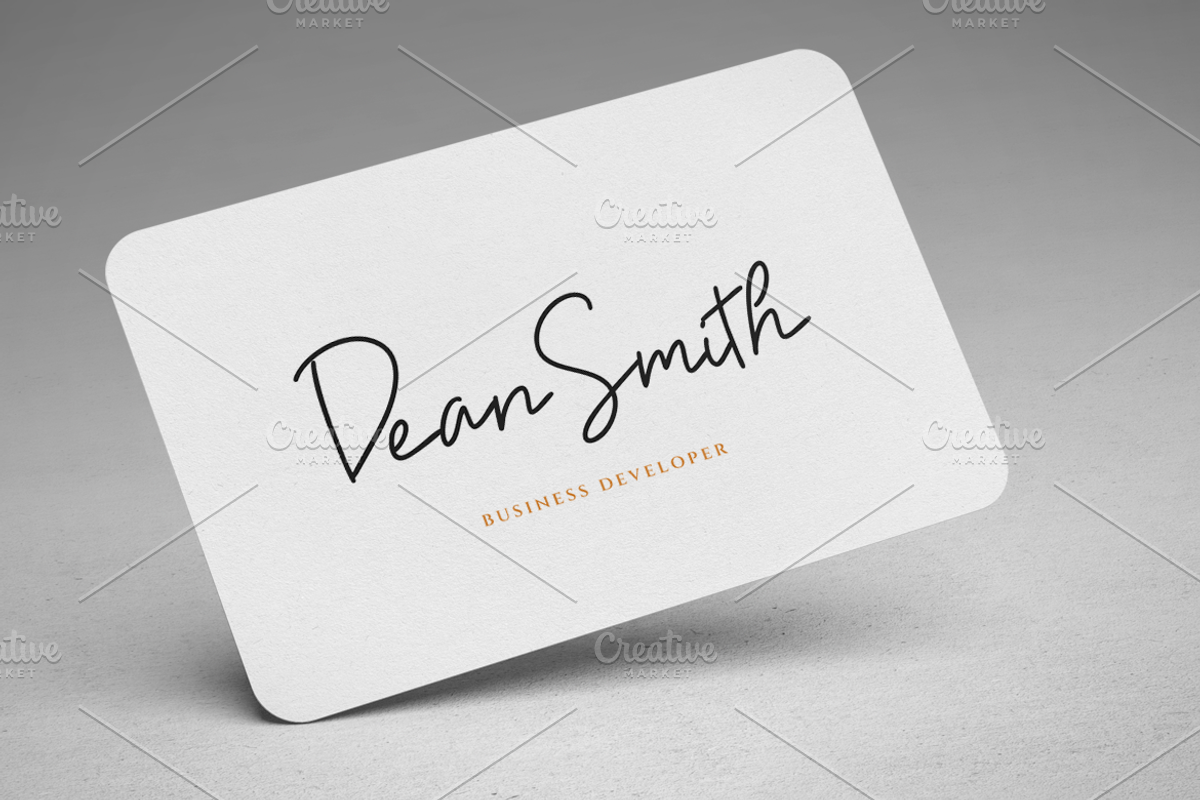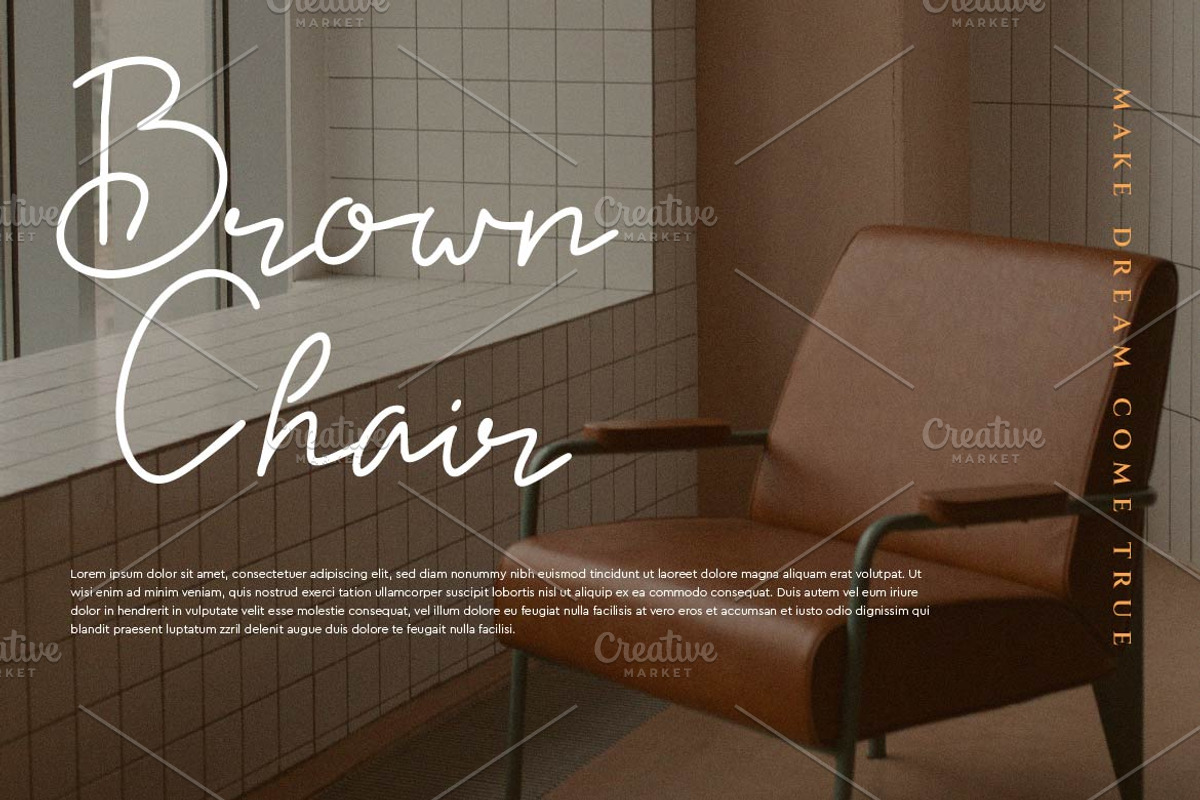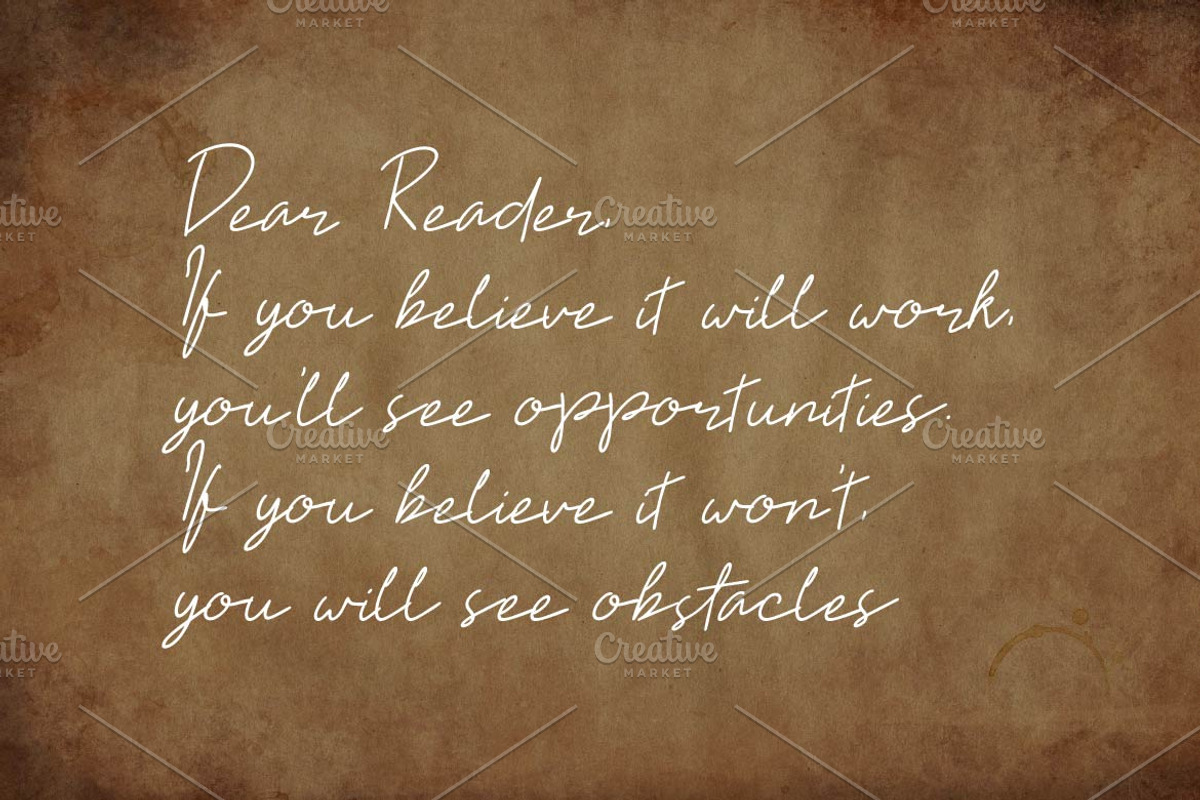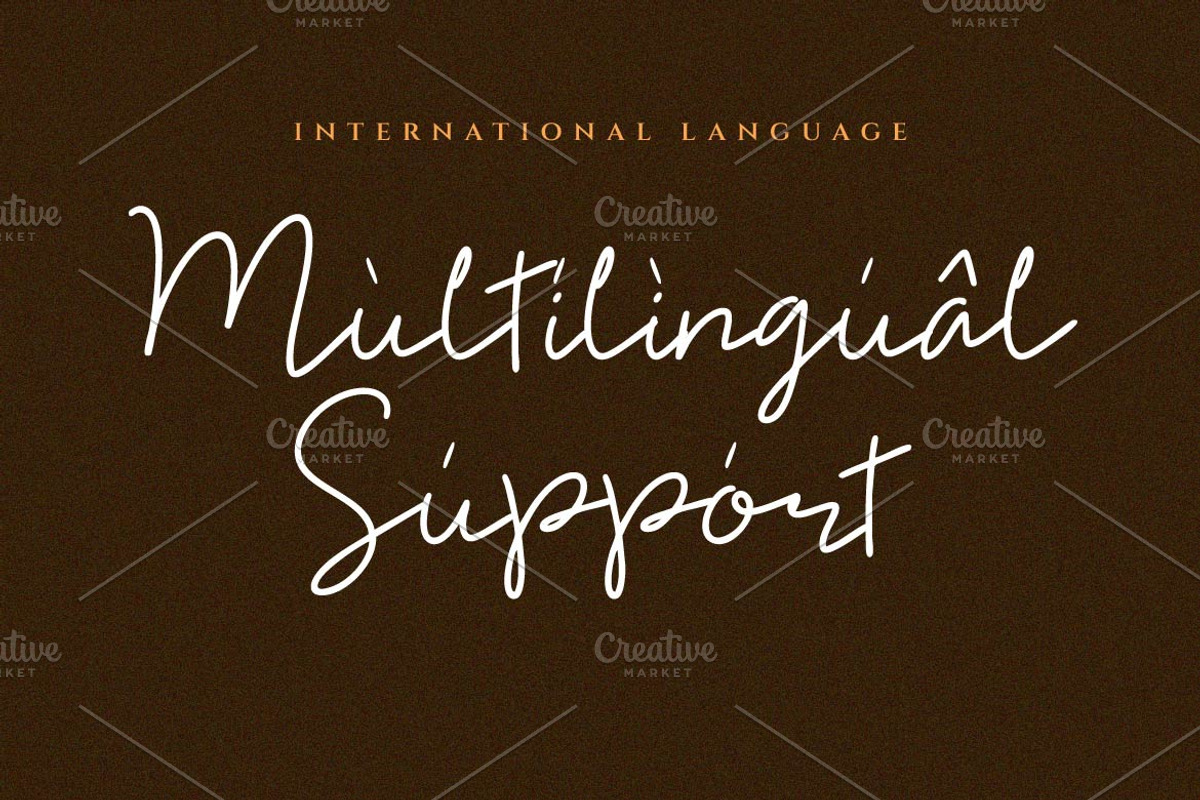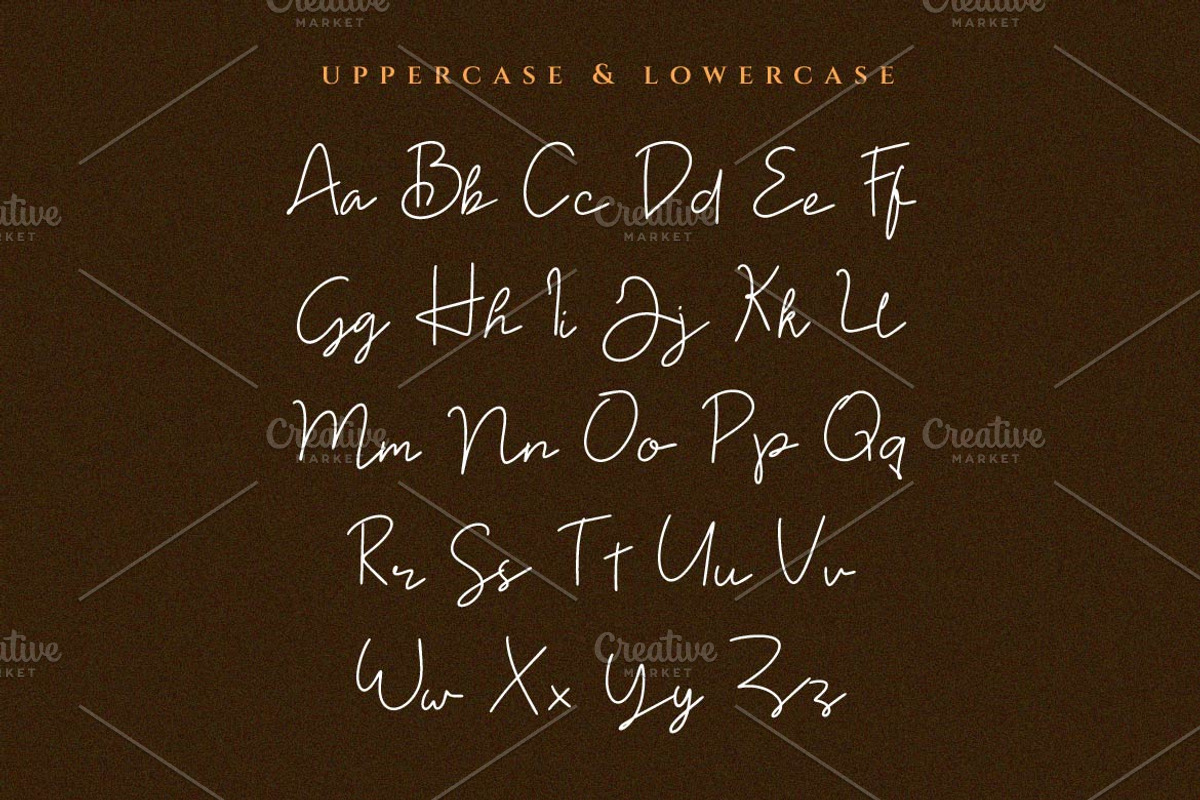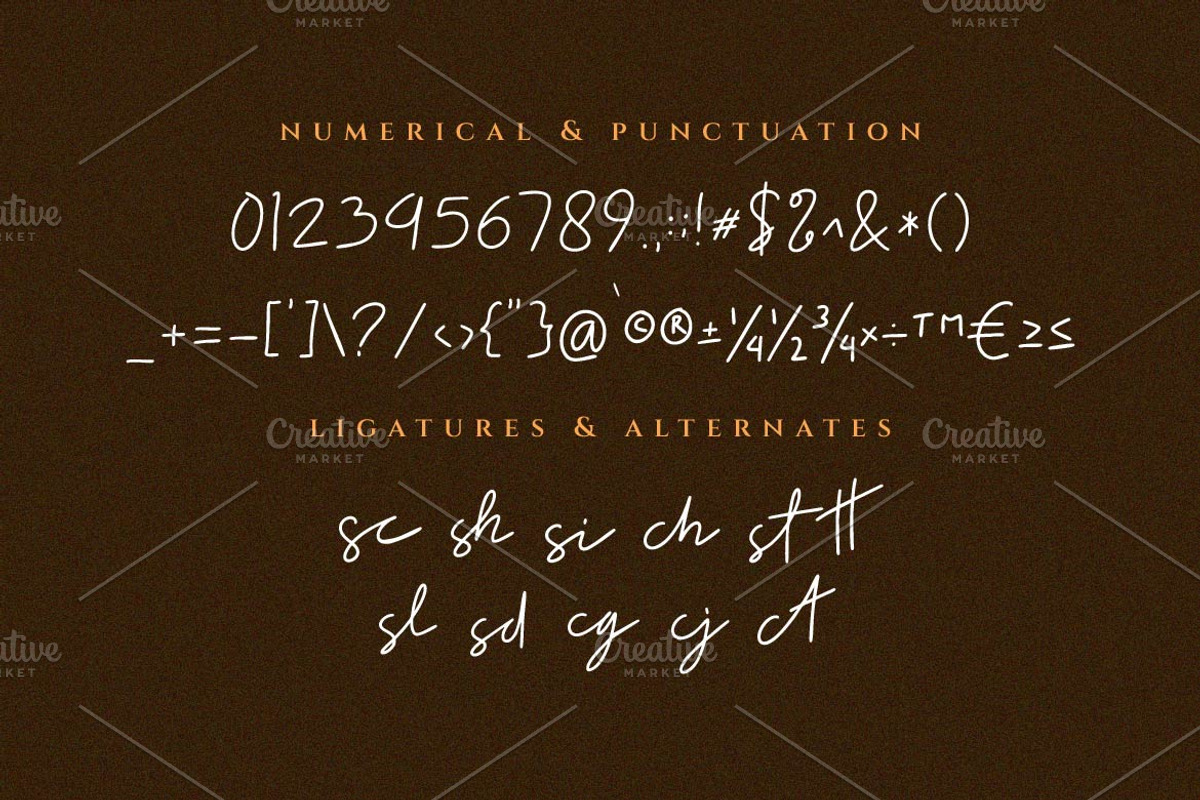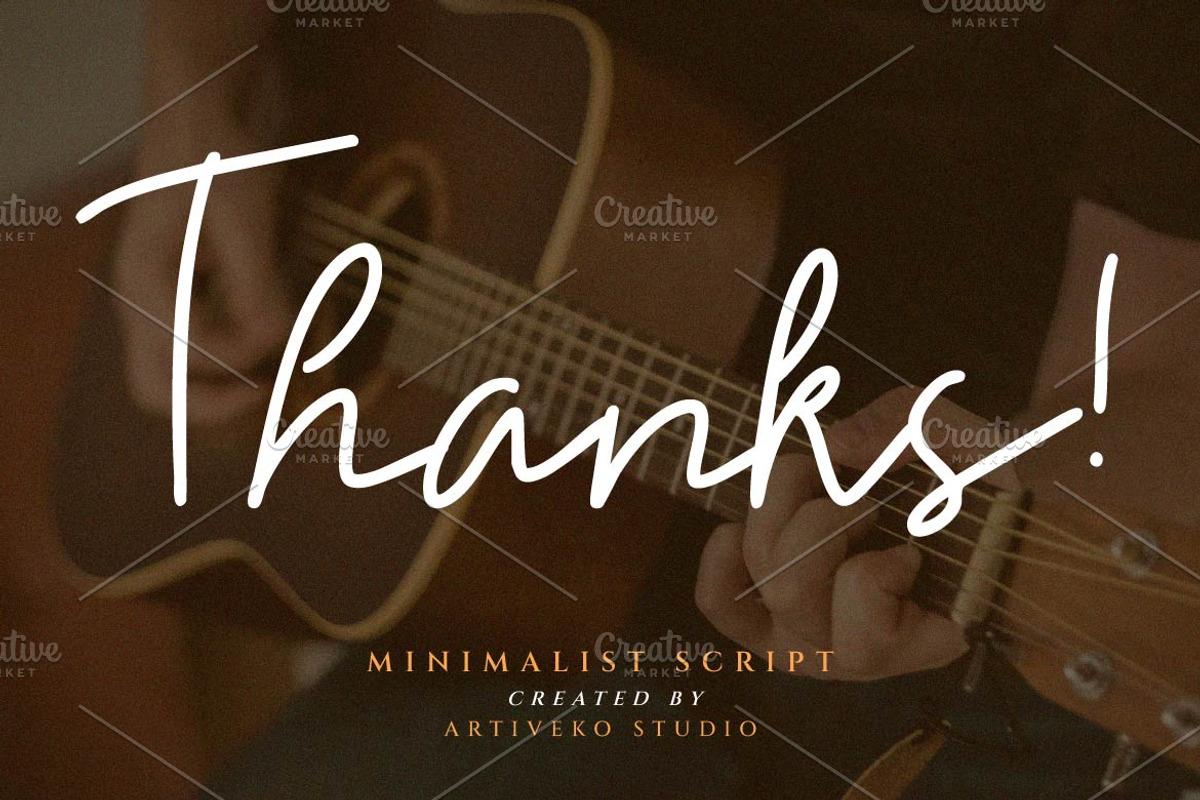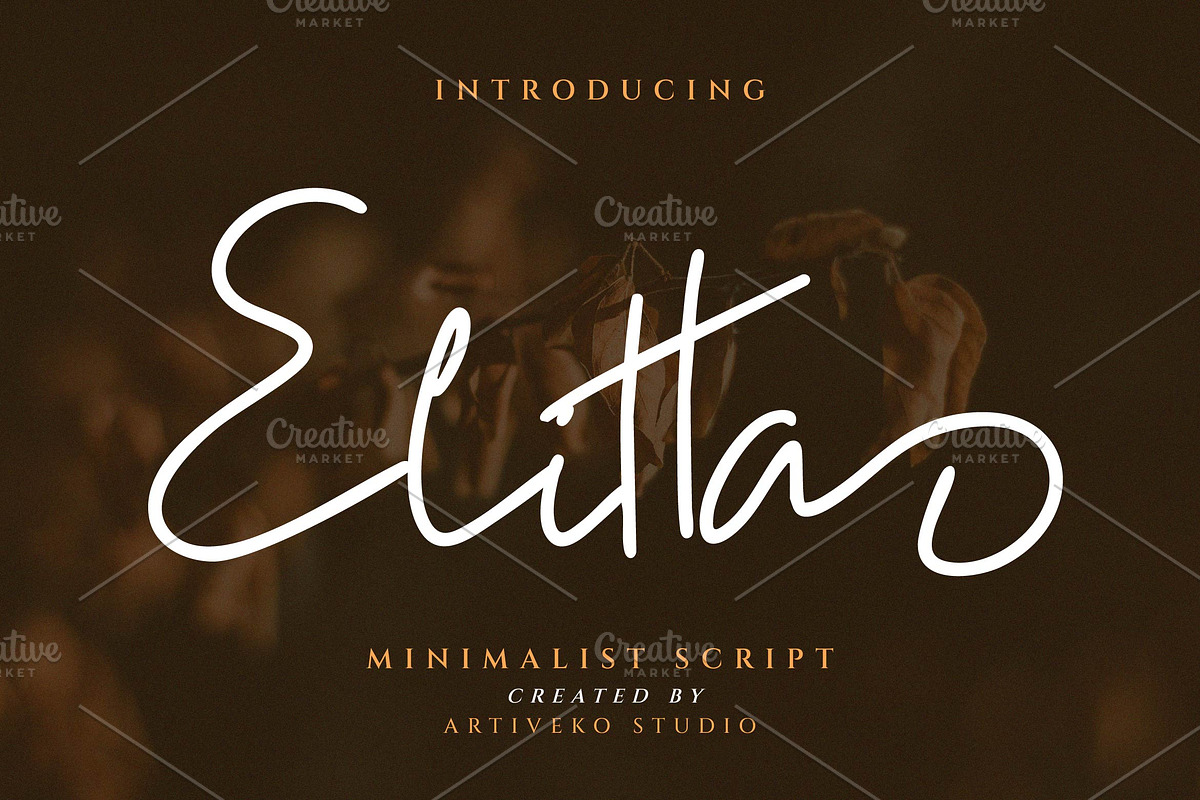
Elitta Minimalist Script Font
Elitta is a sophisticated script font designed by Iwan Alwan, featuring elegant, flowing letterforms that capture timeless beauty and charm. Perfect for wedding invitations, branding, and creative projects, Elitta brings a graceful, handwritten touch to your designs. With multilingual support, ligatures, and alternates, Elitta offers versatility while maintaining its refined and luxurious aesthetic, making it ideal for projects that seek a touch of class and elegance.